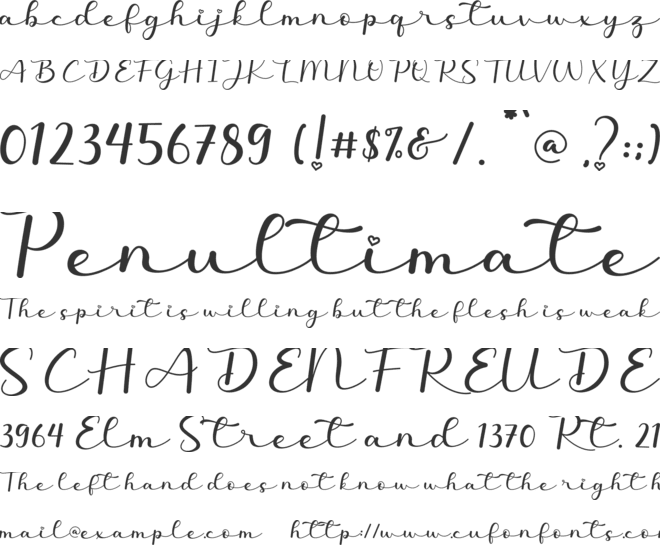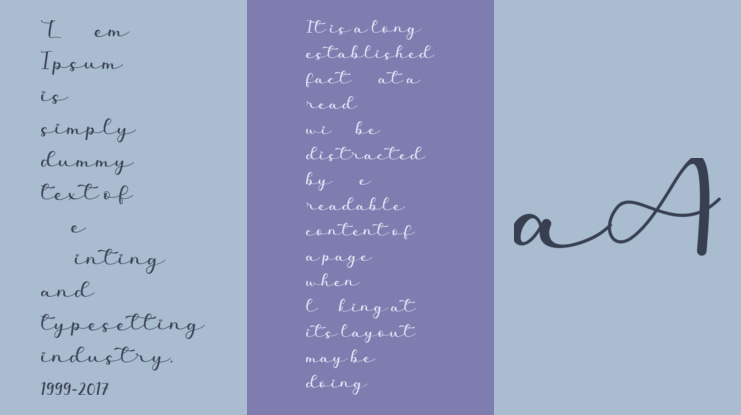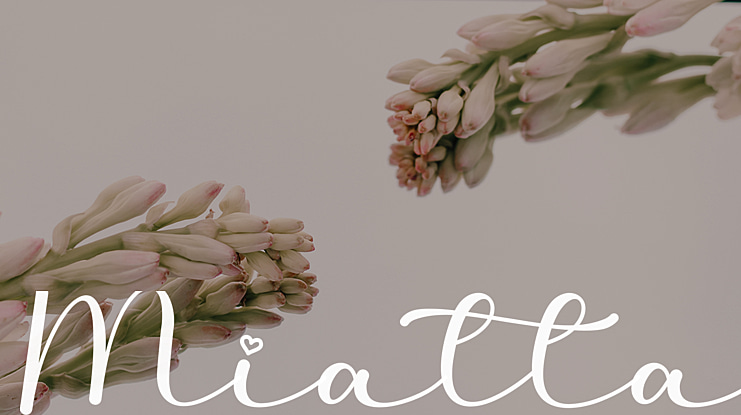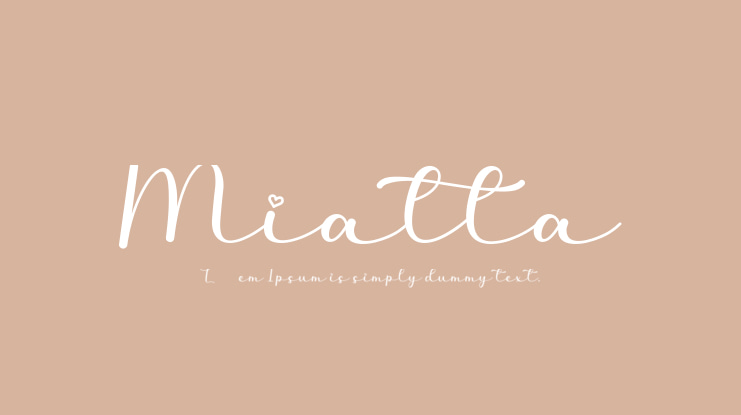
Miatta Font
Miatta is an elegant script font with a contemporary atmosphere and impeccable form, inspired by timeless classic calligraphy. Not too thin and not too thick, balanced and varied, this font was designed to enhance the beauty of your projects. This font is PUA encoded which means you can access all of the glyphs and swashes with ease!